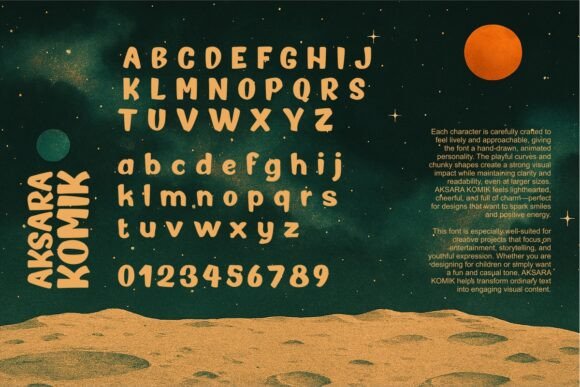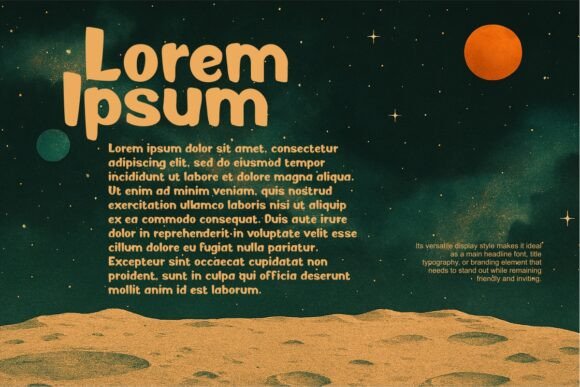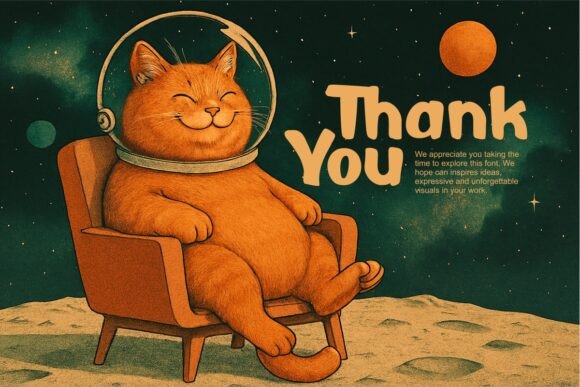
Unleash the Power of Aksara Komik Font
Have you ever stared at a blank page, desperate for the perfect font to bring your creative vision to life? We’ve all been there. But what if I told you that there’s a font that can add a touch of magic to your designs, making them stand out in a crowded world? Enter Aksara Komik, a bold and eye-catching display font designed to make your words shine.
With Aksara Komik Font, you can add a playful and dynamic touch to comic books, posters, and headlines. Its strong and distinctive style makes it perfect for designers who want to give their designs a bold personality. And the best part? It’s not just about looking good – Aksara Komik Font also combines readability with a touch of fun, making it a valuable addition to any designer’s toolkit.
- Unique Characteristics: Aksara Komik Font is a unique, hand-drawn font designed specifically for comic book and graphic novel creators, with a bold and playful style that adds a touch of personality to text.
- Language Support: The font supports the Indonesian language, making it an excellent choice for creators who want to add a touch of local flavor to their work.
Aksara Komik Font Review
Overall, I think Aksara Komik Font has some nice qualities, but it’s not without its limitations. Let’s start with the good stuff:
- ✨ The font has a unique, hand-drawn feel that can add a lot of character to a design. It’s perfect for projects that need a bit of whimsy or playfulness.
- ✨ The font is highly legible, even at smaller font sizes. This makes it a good choice for body text or captions.
- ✨ Aksara Komik Font supports a wide range of languages, including Indonesian and Malay. This makes it a great option for designers working on projects with a Southeast Asian focus.
However, there are a few things that could be improved:
- ⚠️ The font’s bold weights are a bit inconsistent, which can make it difficult to use in certain situations. For example, the bold weight of the font might be too heavy or too light, depending on the design.
- ⚠️ Aksara Komik Font doesn’t have a lot of font styles or variations. This can make it a bit limiting for designers who want to create a lot of visual interest in their designs.
Overall, I think Aksara Komik Font is a solid choice for designers who need a unique, hand-drawn font. However, it’s not without its limitations. With a bit more development, I think this font could be even more useful and versatile.
Aksara Komik Font is ideal for creating playful, cartoon-like designs. Common use cases include:
– Cartoon character designs
– Children’s book illustrations
– Comic book art
– Social media graphics
– Branding and marketing materials